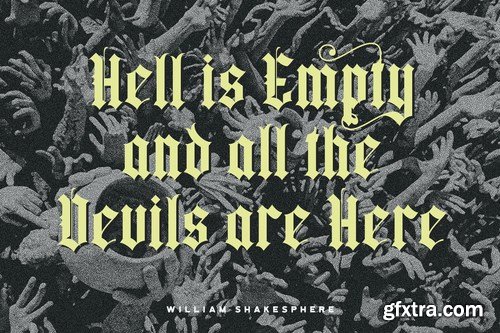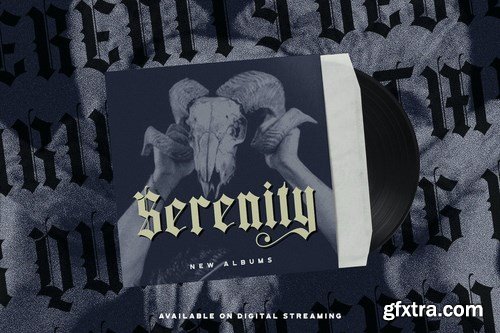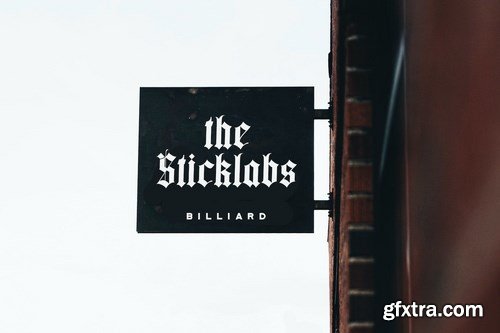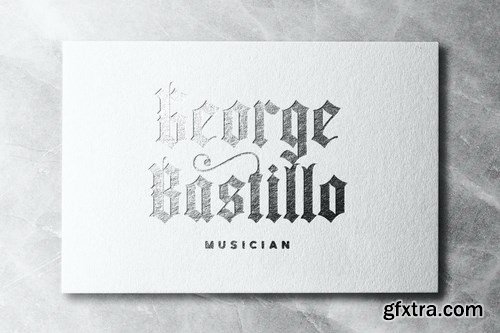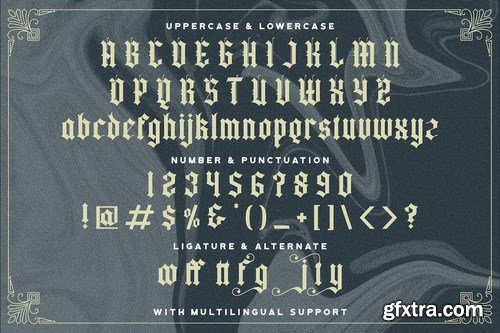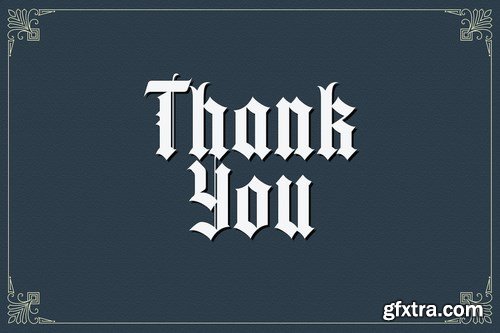
Yugitoy is a unique, stylish and elegant vintage victorian font. This typeface will look truly outstanding in a wide range of contexts.
FEATURES
Alternates
Ligatures
Uppercase and Lowercase letters
Numbering and Punctuations
Multilingual Support